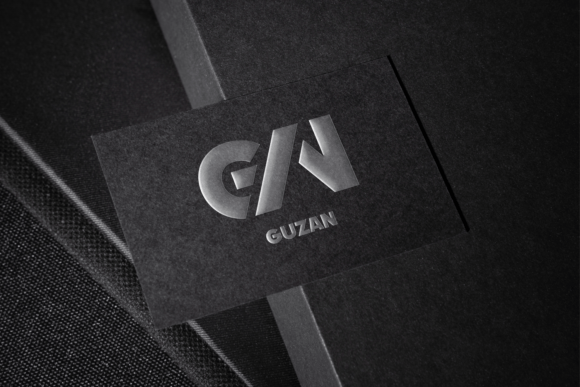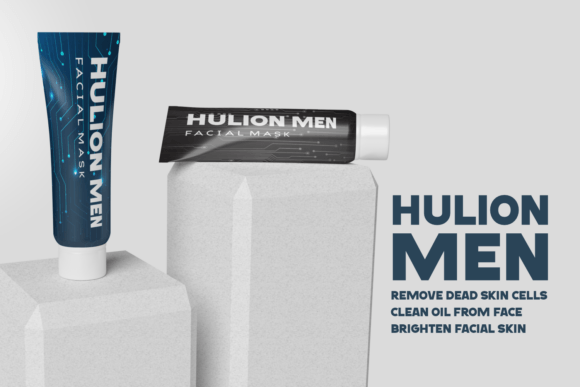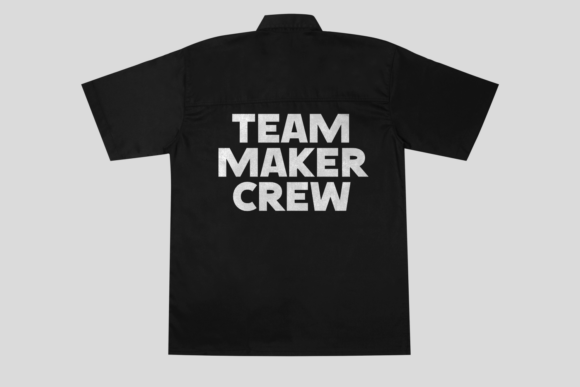
Introduction to Guzan Font
Remember the thrill of staring at a blank canvas, waiting for inspiration to strike? That’s exactly what happened to us when we first laid eyes on the Guzan Font. Its sleek lines and elegant proportions immediately caught our attention, making it the perfect fit for our next creative project.
Key Features of Guzan Font
- High-quality, elegant design suitable for creative projects and design resources.
- Designed to be highly legible, making it perfect for body text, headings, and titles in various creative projects.
- Includes a range of weights and styles, allowing designers to add depth and variety to their designs.
Honest Review: Guzan Font
As a designer, I’m always on the lookout for high-quality design resources to elevate my creative projects. The Guzan Font caught my attention with its unique and modern aesthetic. I decided to give it a try and share my honest review.
- ✨ Unique and modern design style that’s perfect for contemporary projects
- ⚠️ Limited character set, which may not be suitable for projects requiring extensive text
Overall, I’m impressed with the Guzan Font’s unique design and free download option. While it may have some limitations, it’s a great addition to any designer’s toolkit. I’d definitely recommend it for creative projects requiring a modern and sleek look.
Tips for Getting the Most Out of Guzan Font
Guzan Font is ideal for a variety of creative projects, including business cards, brochures, and social media graphics. Its high quality and transparent background make it an excellent choice for designs that require a touch of elegance and sophistication.
Alternatives to Guzan Font